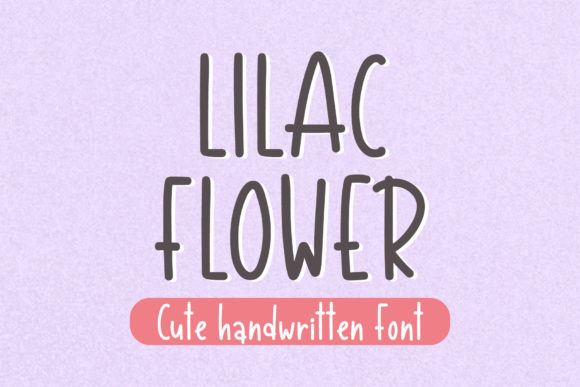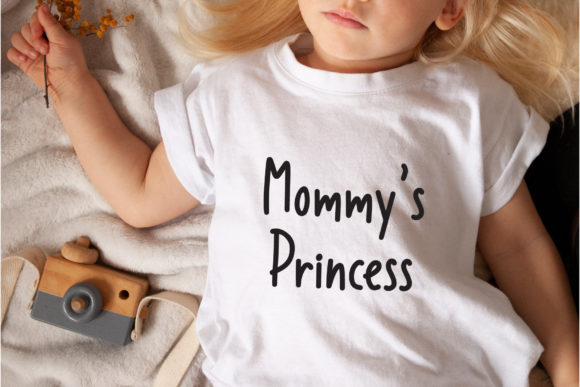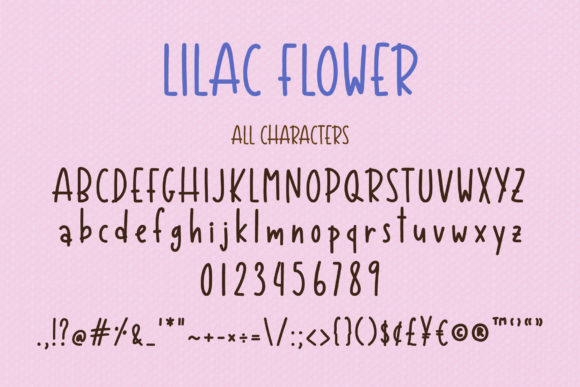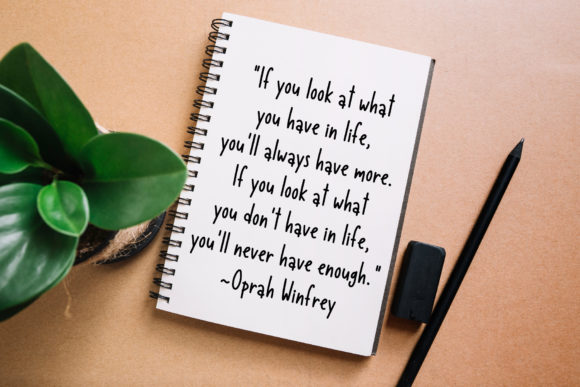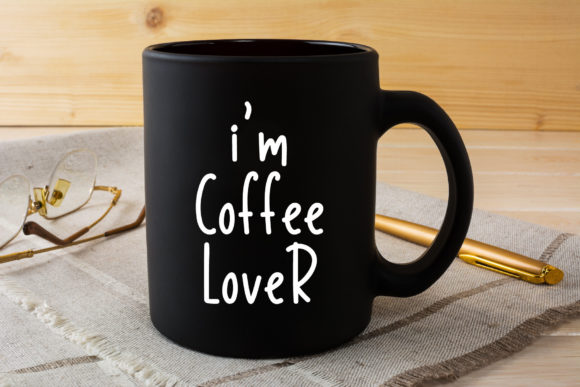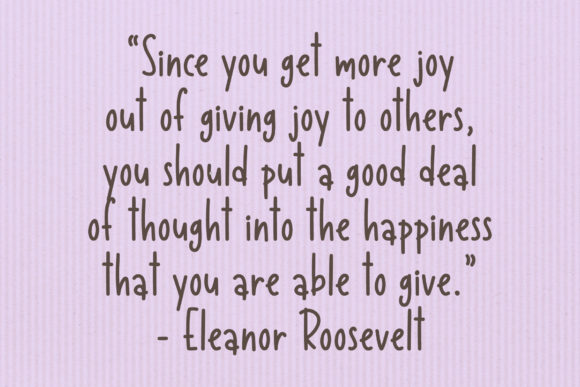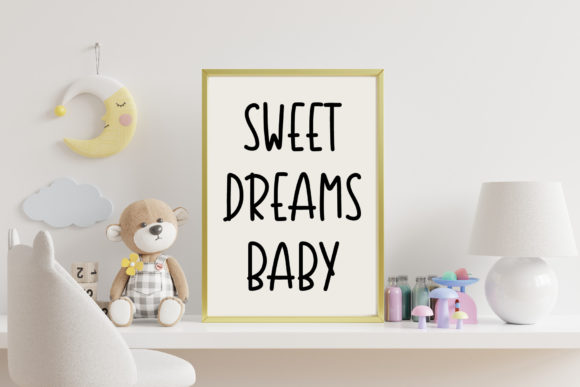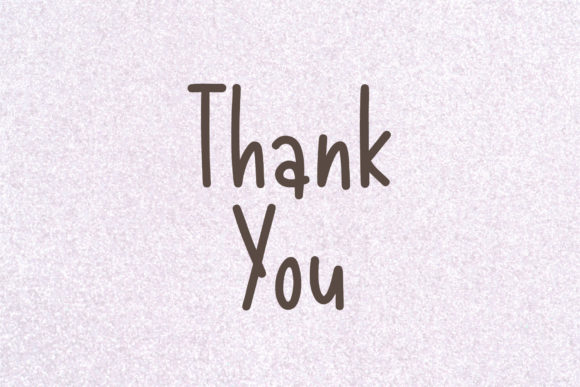
Lilac Flower Font
About Lilac Flower Font
Lilac Flower is a charming handwritten font that captures the authentic look and feel of hand-drawn lettering. With its natural and organic strokes, this font is perfect for creating chalkboard quotes, teaching materials, and any design that requires a personal and realistic touch.
The unique appeal of Lilac Flower lies in its imperfect and whimsical letterforms. The font mimics the fluidity and variability of hand-drawn letters, giving your designs a genuine and handcrafted appearance. Each letter has a slightly different shape and style, adding to the overall charm and character of the font.
Using Lilac Flower in your designs allows you to create a warm and inviting atmosphere. Whether you’re designing educational materials, inspirational quotes, or decorative signage, this font adds a personal touch that resonates with viewers. It evokes a sense of nostalgia and comfort, making it perfect for projects that aim to engage and connect with an audience.
The versatility of Lilac Flower makes it suitable for a wide range of applications. Its authentic and realistic style lends itself well to chalkboard designs, giving your projects a nostalgic and vintage look. It can also be used for digital or print materials, such as social media graphics, invitations, labels, and more, where you want to add a personal and handcrafted touch.
Lilac Flower maintains excellent legibility, making it easy to read and comprehend. Its clean and well-defined letterforms ensure clarity, even at smaller sizes. This ensures that your message comes across effectively while still maintaining the unique and charming aesthetic of the font.
Embrace the authenticity and personal touch of Lilac Flower in your next design project. Let its whimsical and imperfect letterforms breathe life into your creations, adding a sense of nostalgia and charm. Whether you’re creating teaching materials, chalkboard designs, or any other project that requires an authentic handwritten look, Lilac Flower will bring warmth and personality to your designs.